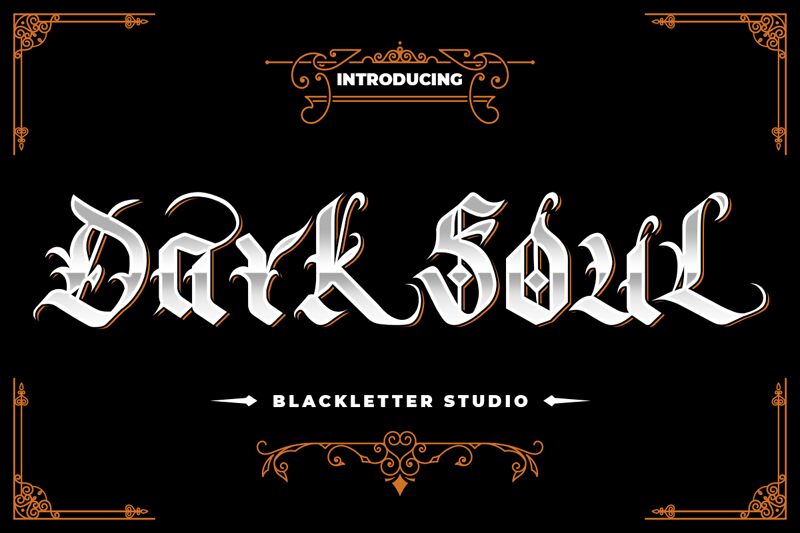
Darksoul by Blackletter Studio is the quintessential gothic font for all your medieval-inspired projects. This blackletter typeface with its sharp edges and intricate details exudes an air of mystery and elegance that's perfect for branding, book covers, invitations, and even tattoos. With its bold and semi-bold font width, Darksoul commands attention and makes a statement wherever it's used. Whether you're looking to add a touch of history to your design or simply want to stand out from the crowd, Darksoul is the ideal choice for any project that requires a touch of gothic flair.
Darksoul